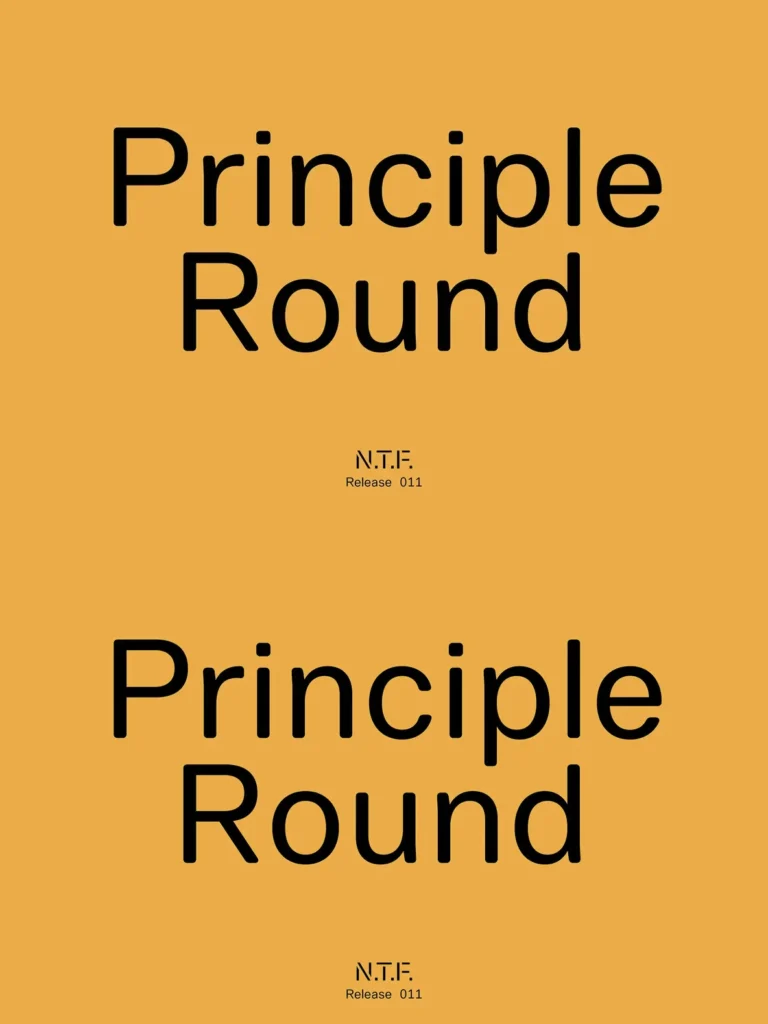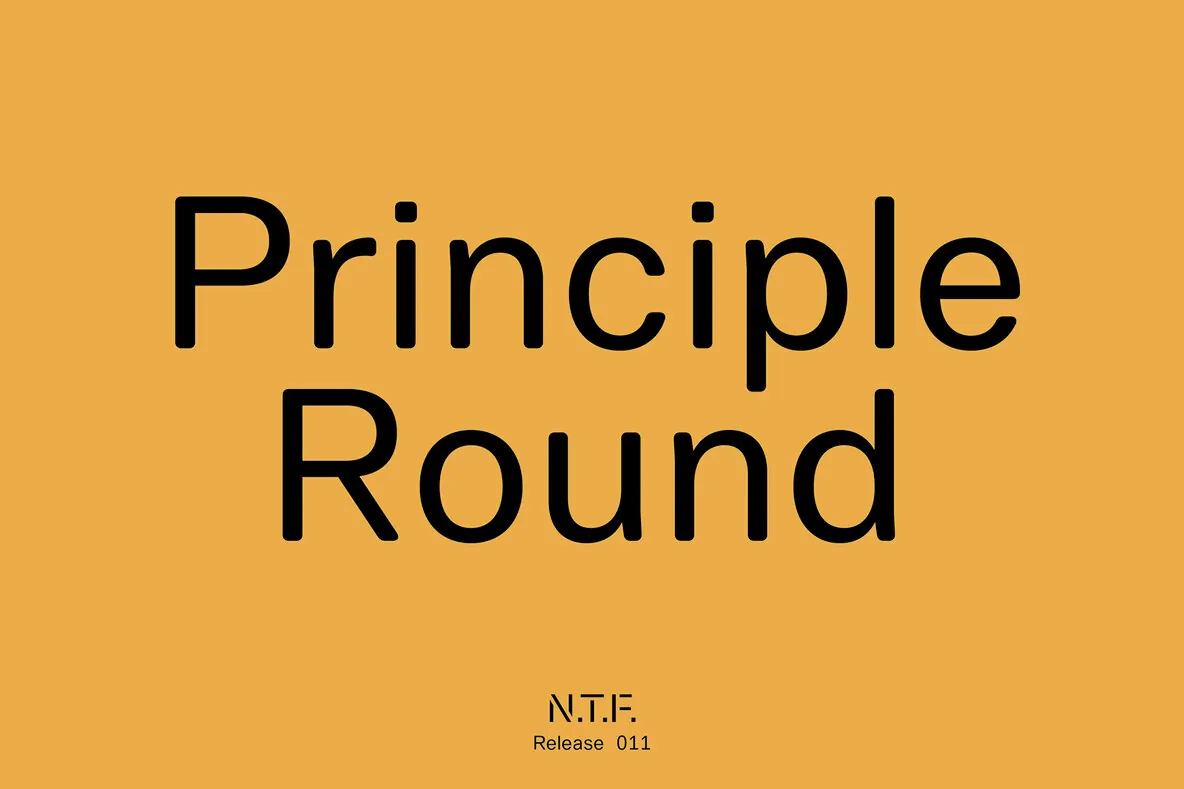
Principle Round extends the structure of the Principle family through a systematic rounding of terminals, corners, and stroke endings across all glyphs. Core proportions, spacing, and overall construction remain consistent with the original design, but sharpness has been reduced to create a more approachable look. The result is a rounded variant that preserves the neutral geometry of the original while presenting a softer and more accommodating feel. Principle Round is intended to provide an alternate tonal option within the same system without altering its underlying framework.
The family consists of six weights in upright and italic and supports 95 languages. It includes a wide range of OpenType features suitable for contemporary typographic workflows. At text sizes, the rounded forms contribute to stable legibility and a more forgiving reading experience. At display sizes, the softened terminals and corners produce a clear and friendly profile that distinguishes it from the sharper parent family. Principle Round is designed for applications where a neutral neogrotesk is required but where a more approachable silhouette is preferred.
Although its design remains closely aligned with the original Principle family, the rounded treatment establishes a distinct typographic voice. Principle Round can function as a standalone option or operate alongside Principle as a complementary style, expanding the range of typographic outcomes available within the family.